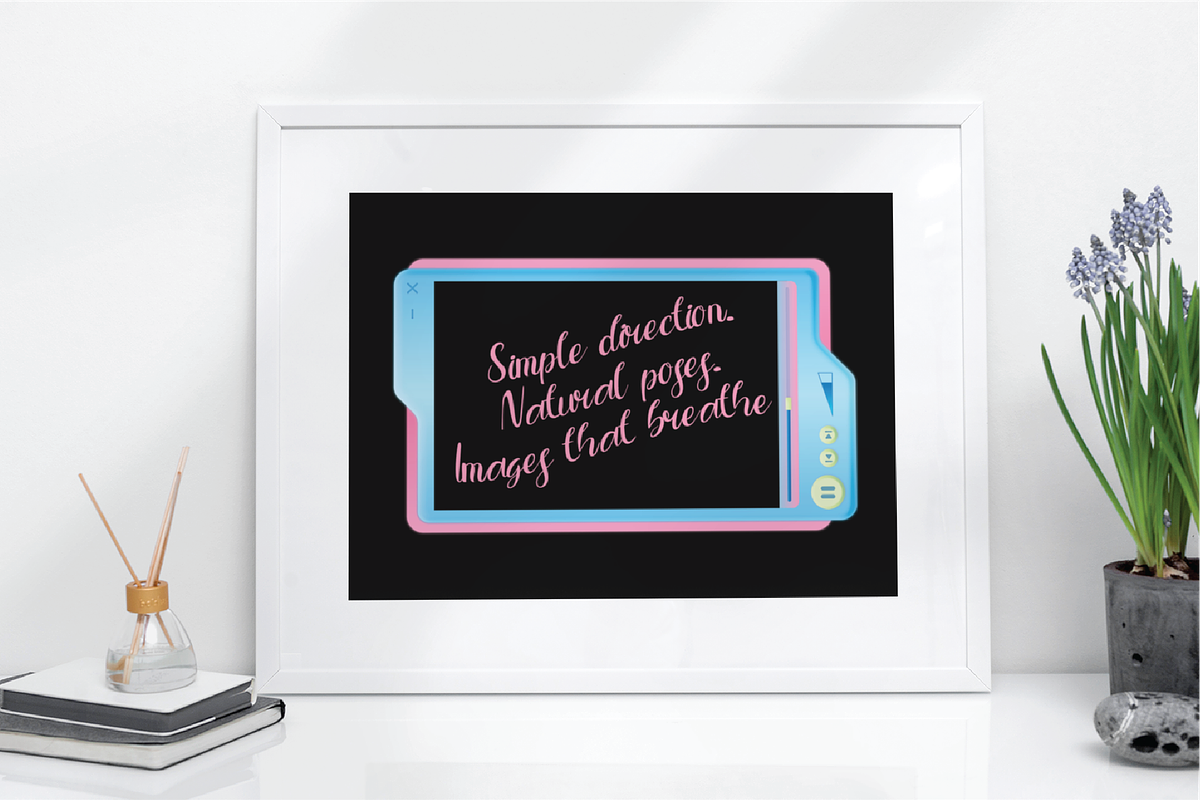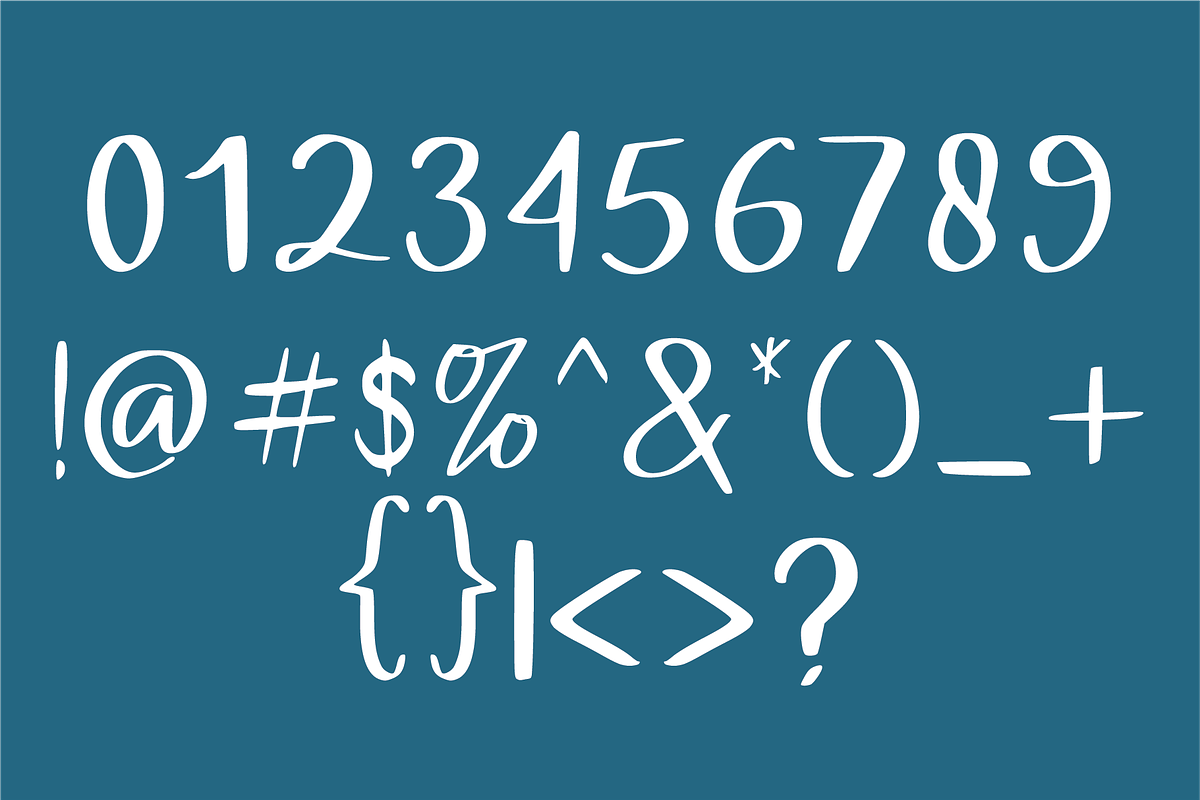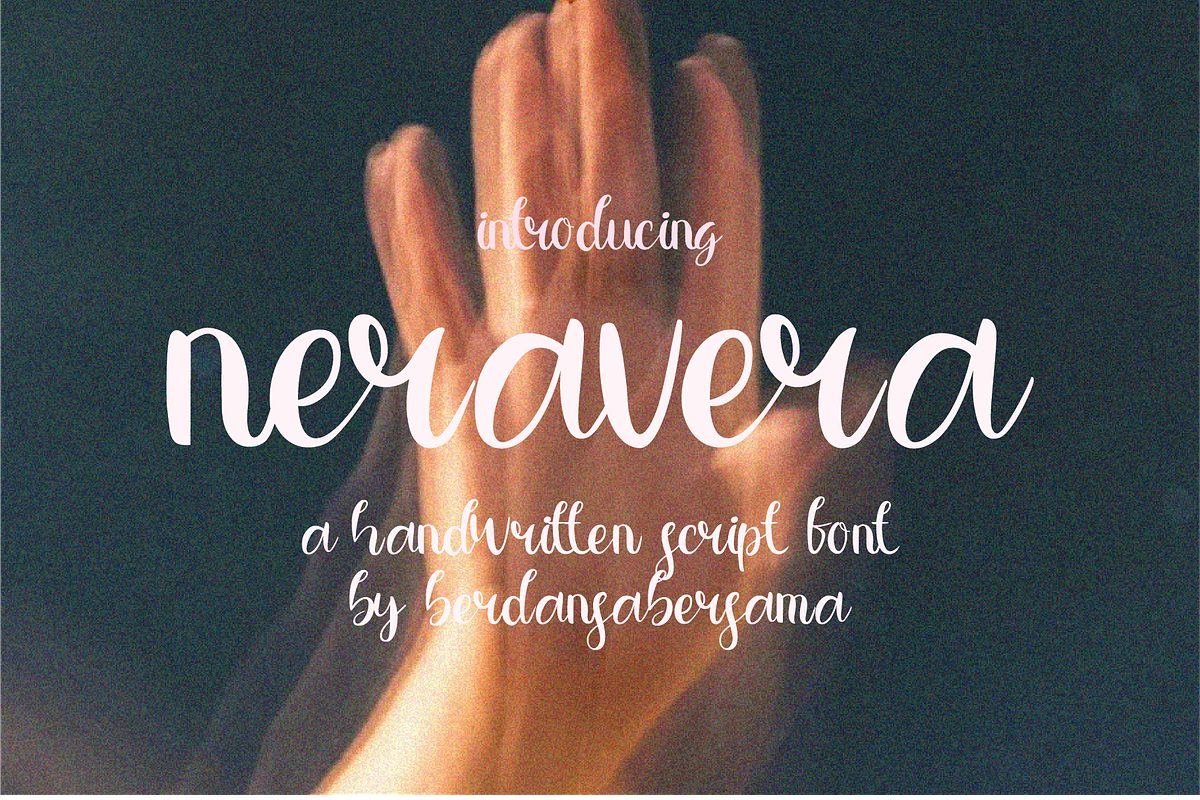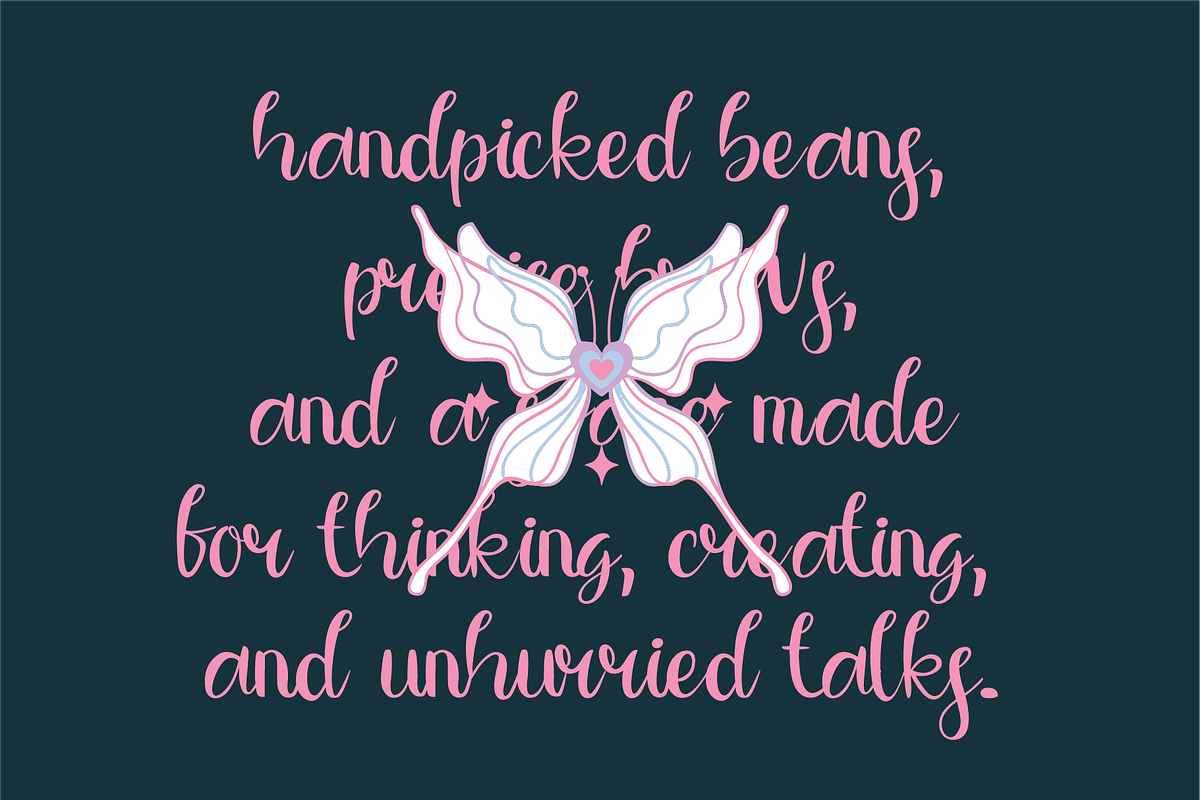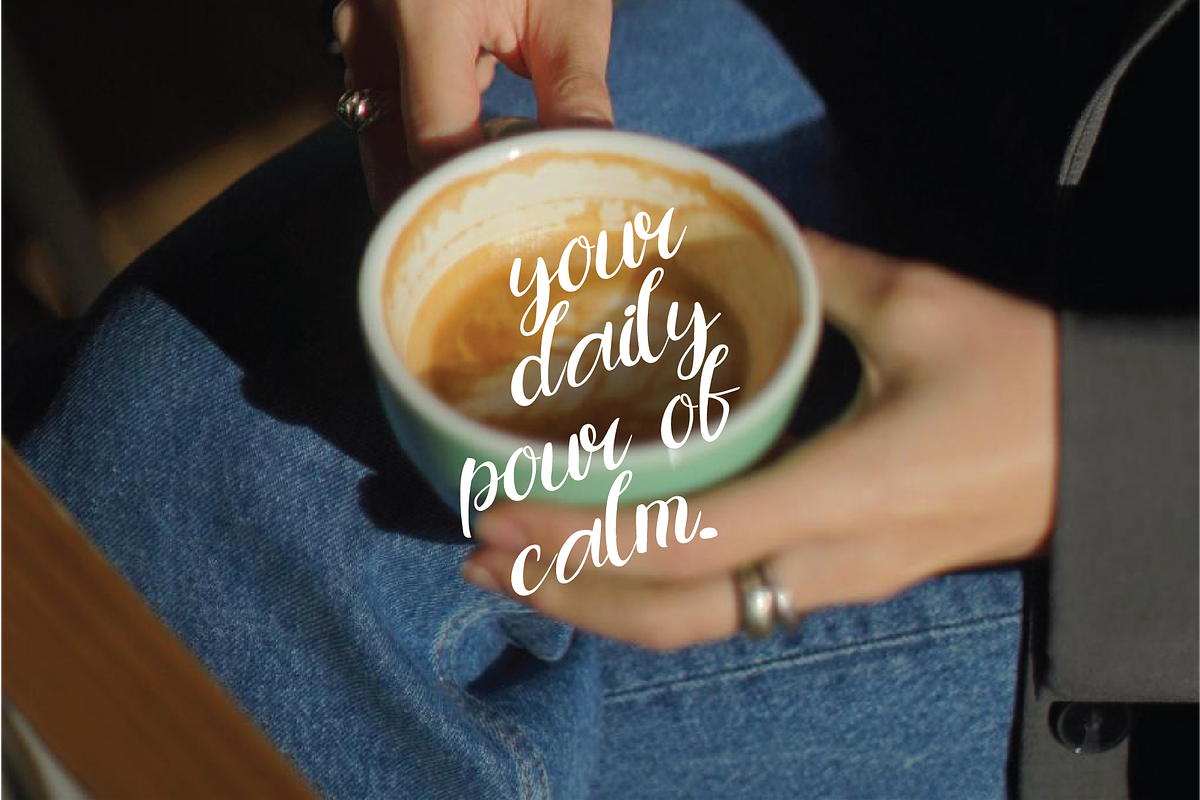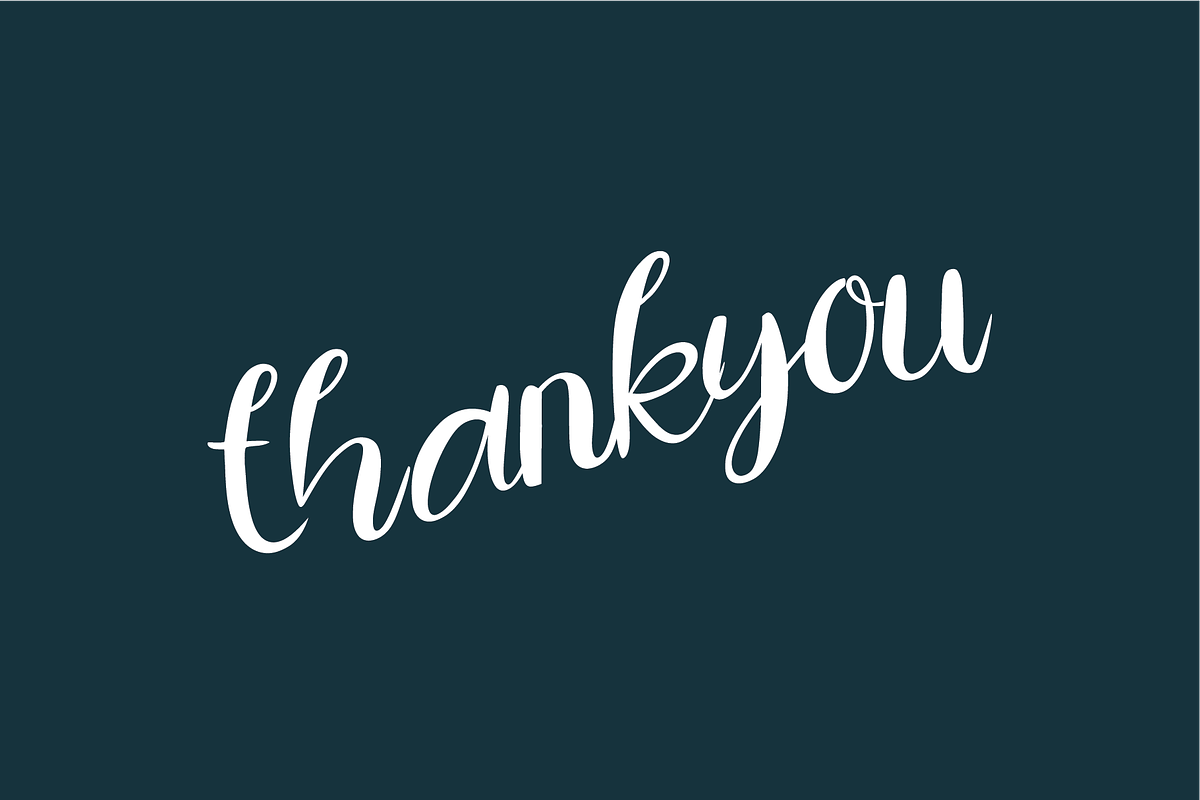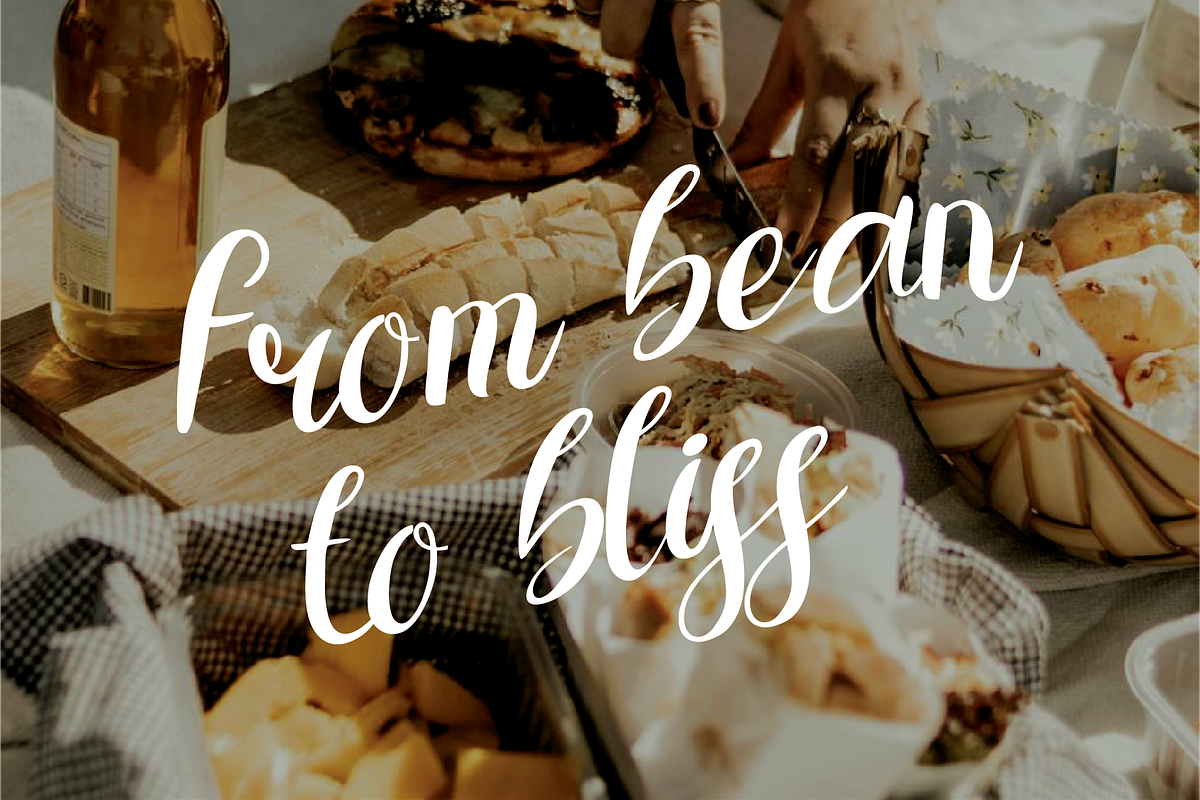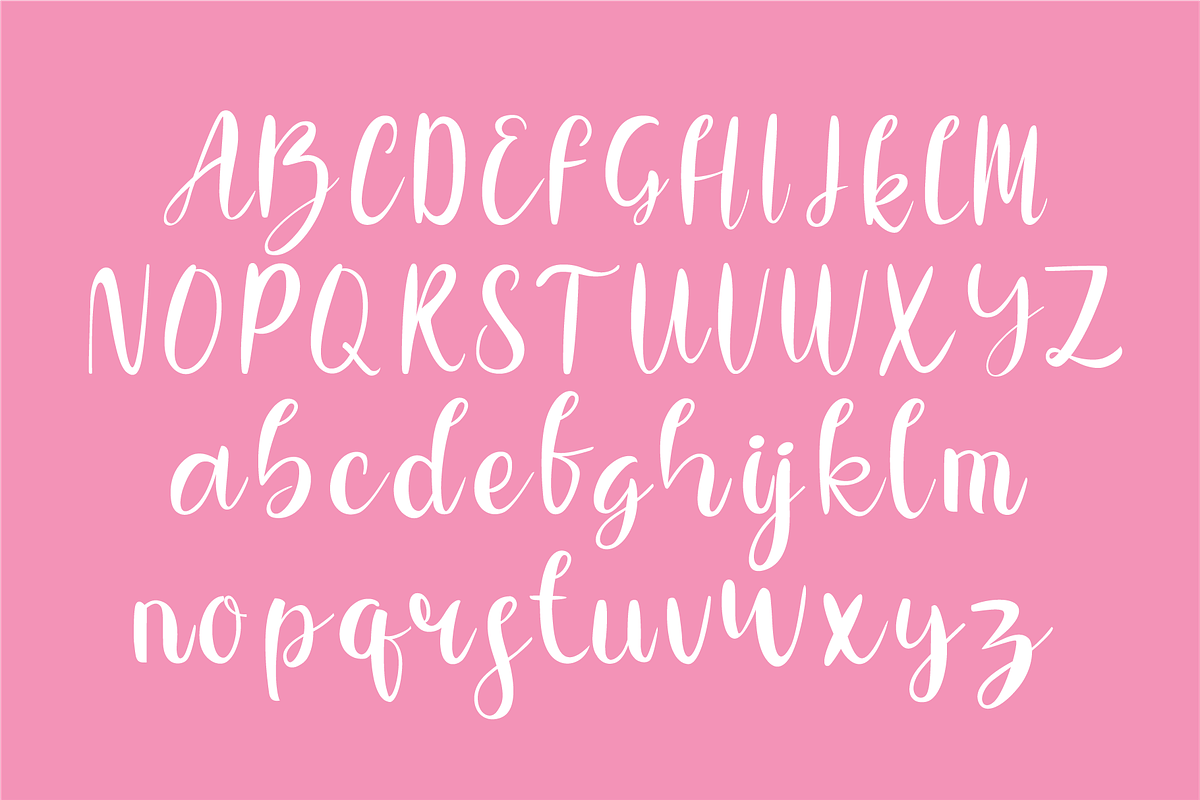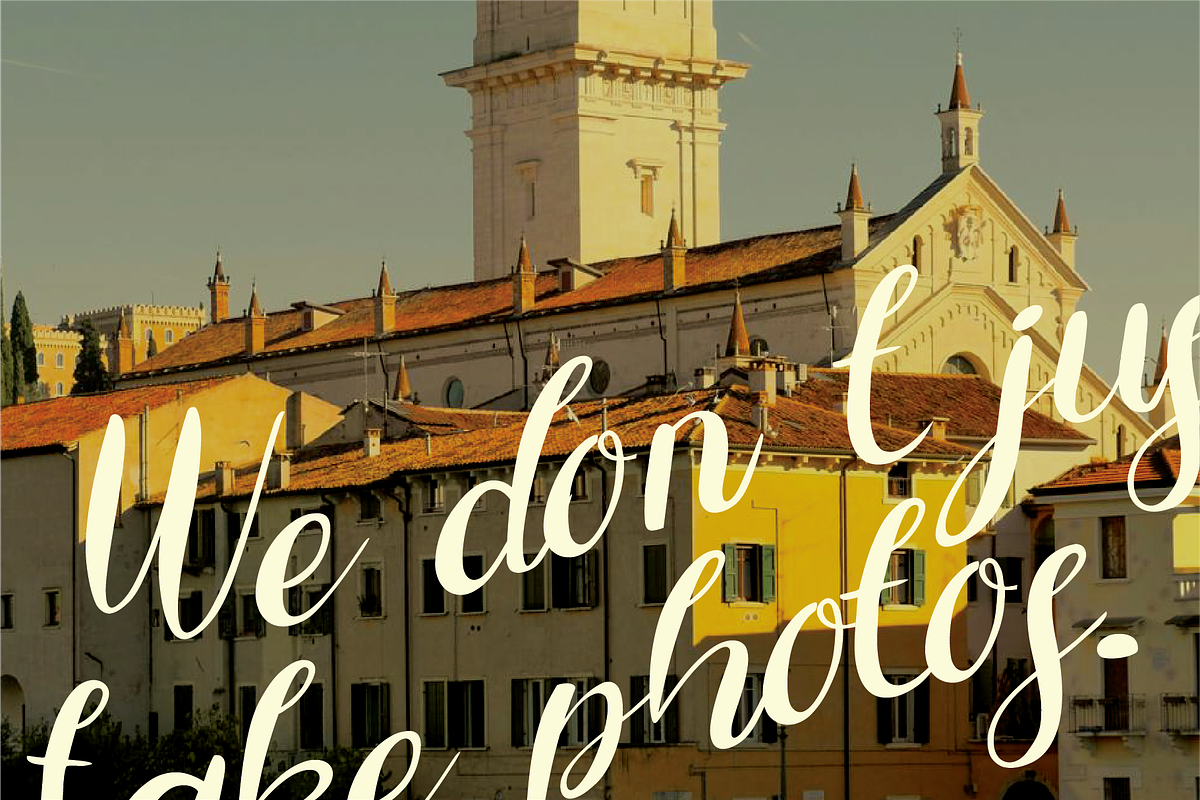
Neravera Script Font
Neravera is a handwritten script font that captures the beauty of natural movement and soft rhythm. Each stroke flows gracefully, creating a warm, organic, and effortlessly elegant look. Its rounded forms and balanced curves make every word feel personal and heartfelt.